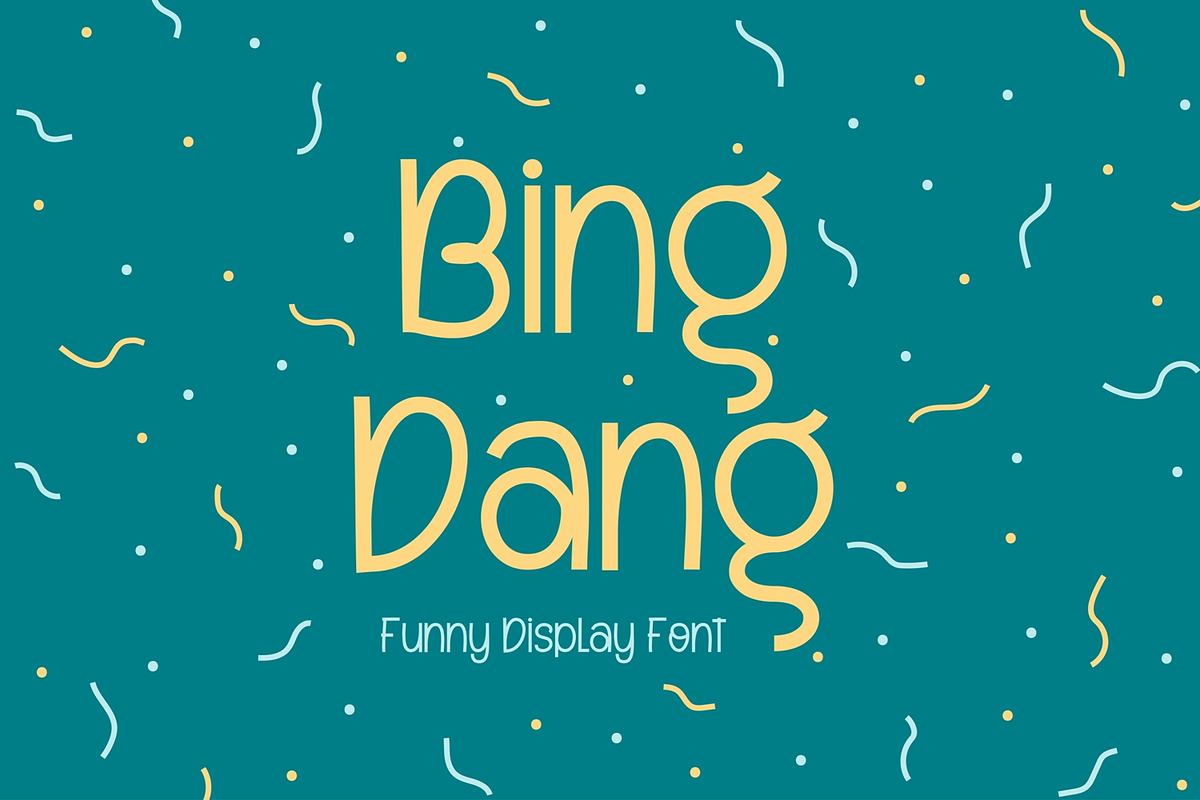
The Bing Dang Font Free Download is a modern and playful typeface with a unique design, perfect for adding a fun and creative touch to any project. Ideal for creating logos, branding, social media posts, and invitations, this font brings a distinctive style to your designs. Please note, for commercial use, a license must be purchased. You can download it for free for testing purposes.
With its bold, quirky design, the Bing Dang Font Free Download is perfect for projects that need a fun and eye-catching flair. Whether you're working on playful branding, event promotions, or custom designs, this font will make your work stand out with its creative style.